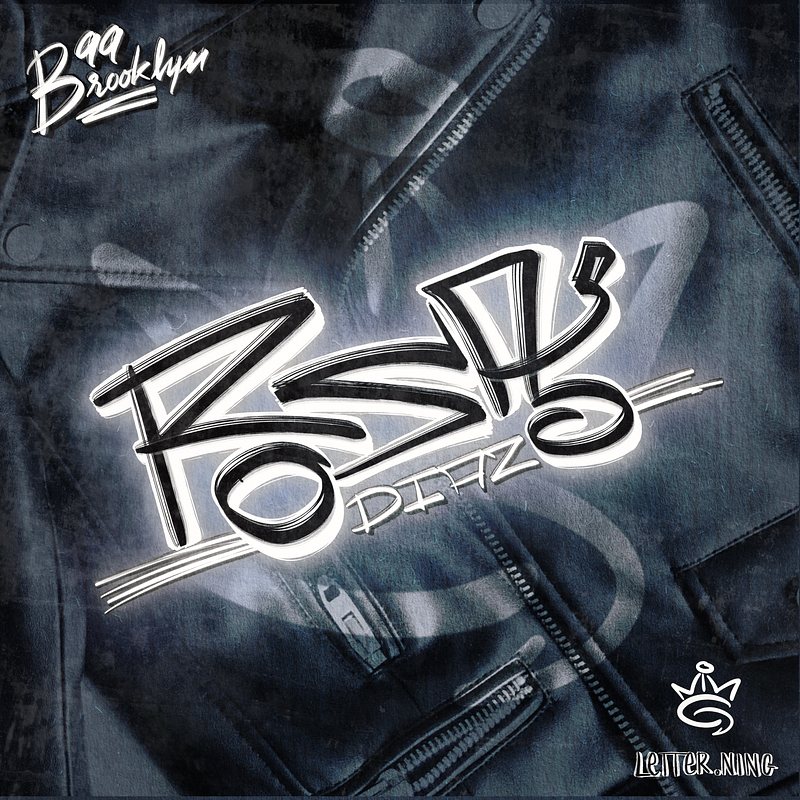
Lettering piece of Rosa Diaz
There’s no better name to kick off the Pride Month celebration than the absolutebi icon,Rosa Diaz from Brooklyn Nine-Nine!
Rosa Diaz from Brooklyn Nine-Nine
I love her cool, tough, and confident demeanor. So, I transformed her name into a motorcycle and used a black leather jacket as the background to represent her iconic style in the show. 😁